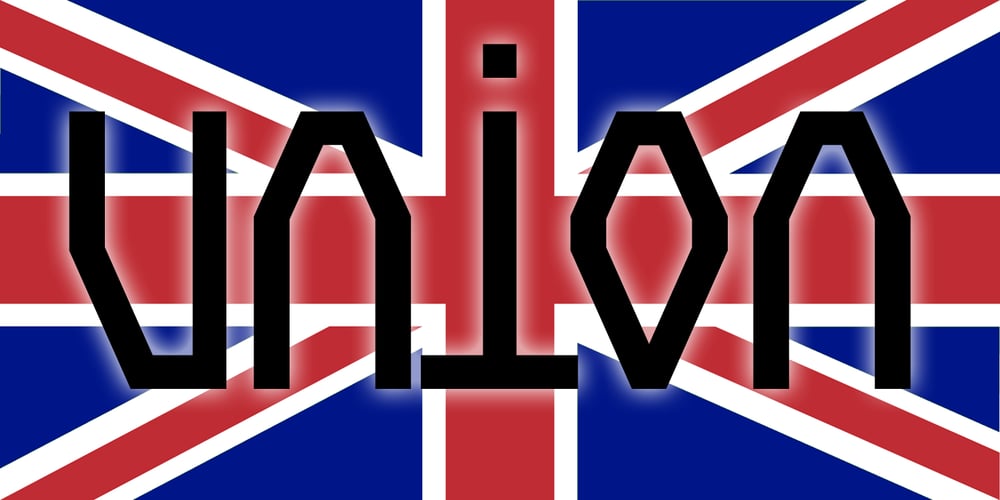
Union Jack
Union Jack font
Union Jack Font Family was designed by Keith Bates and published by K-Type. Union Jack contains 1 styles and family package options. Union Jack has characters overlaid against an outline flag, Union is the same character set without the flag background. Both fonts contain color-separated artwork for the Union Flag at keystrokes § ± ( and )